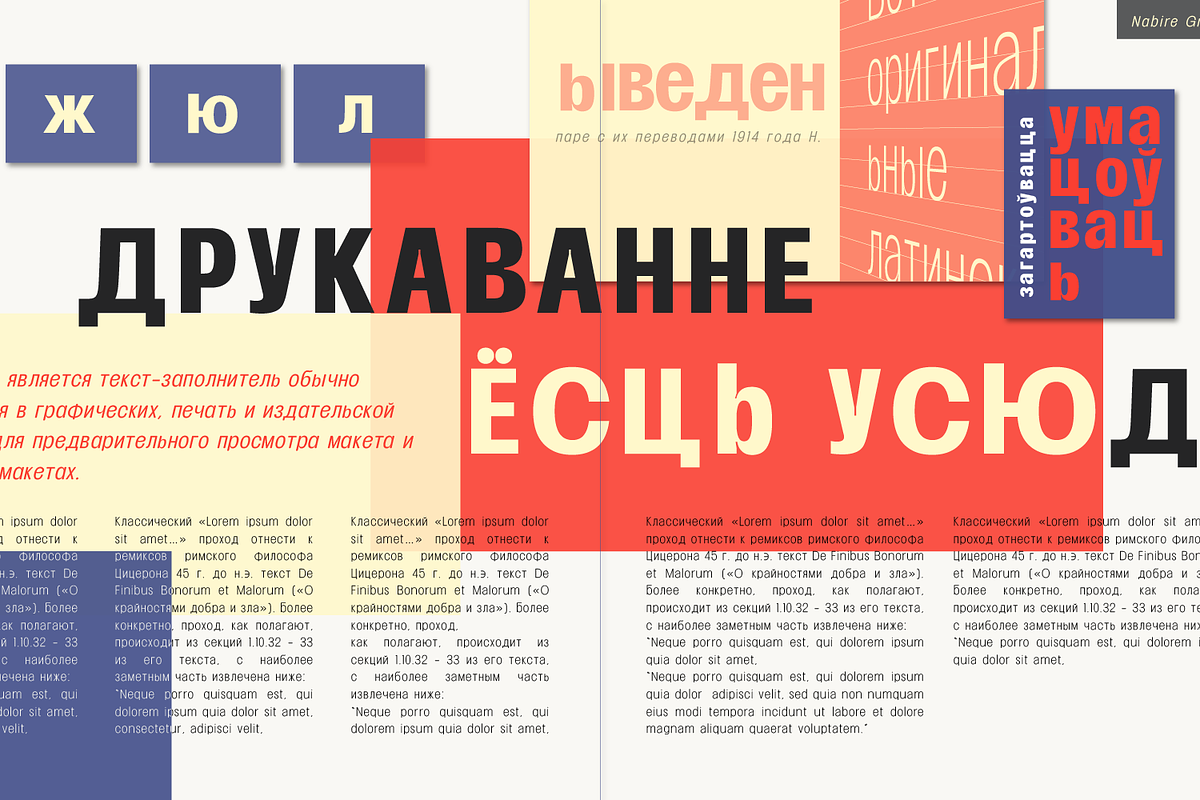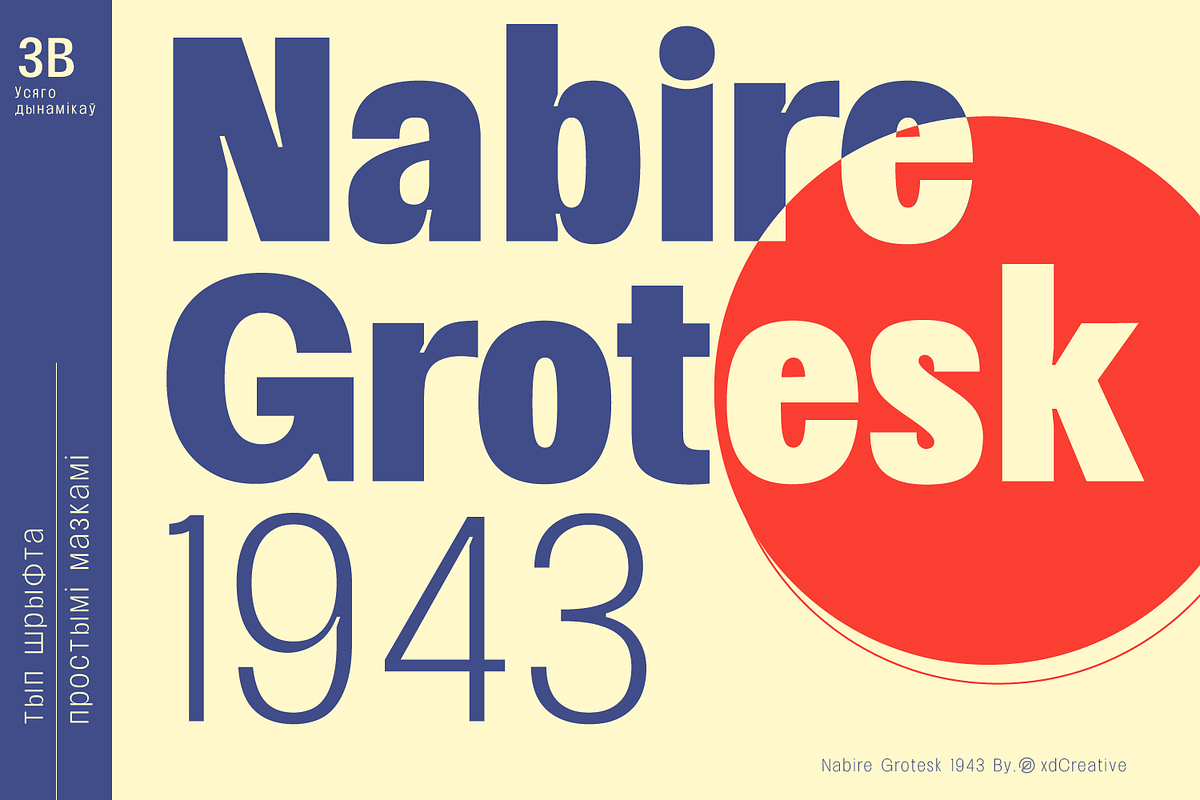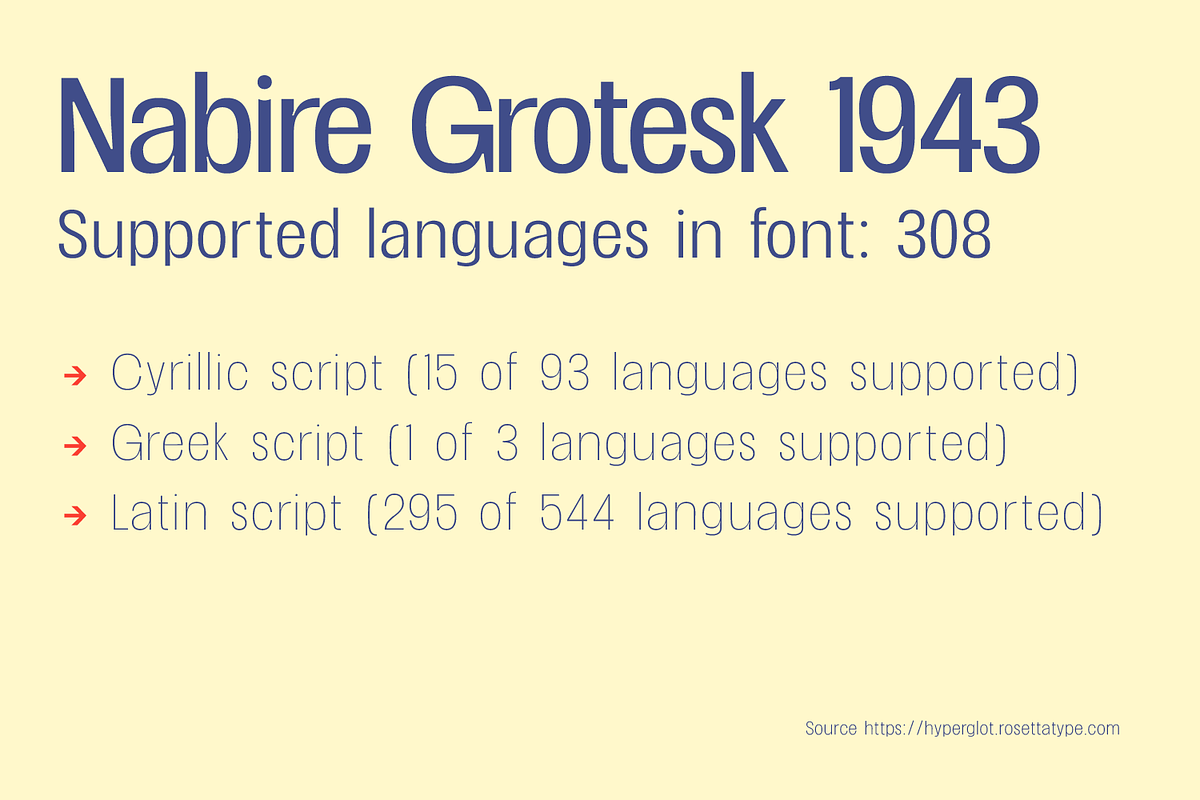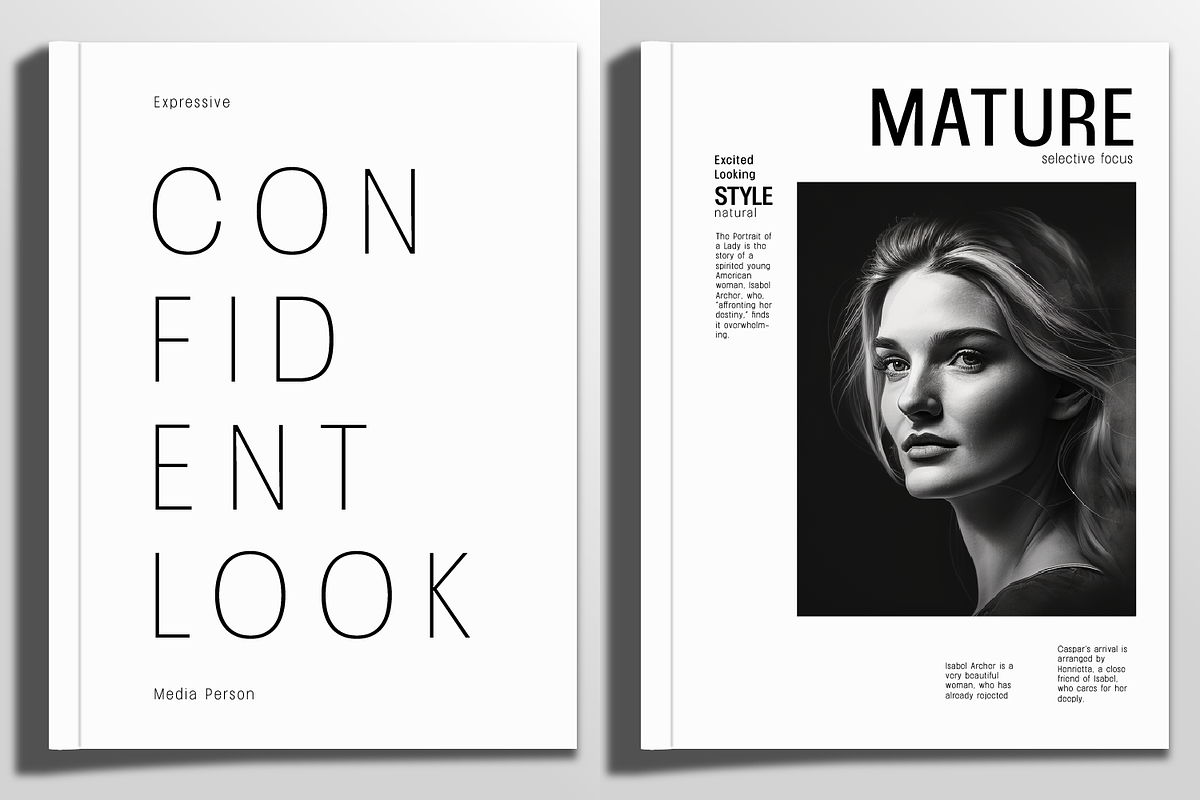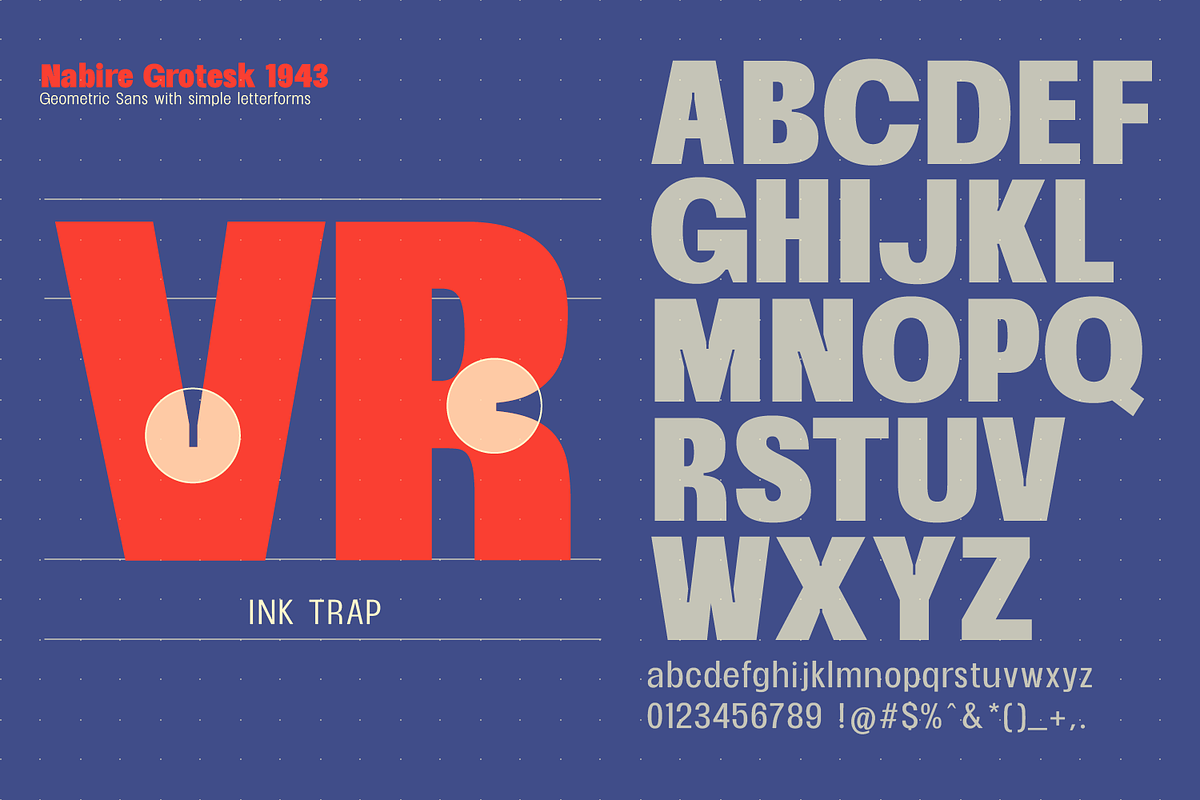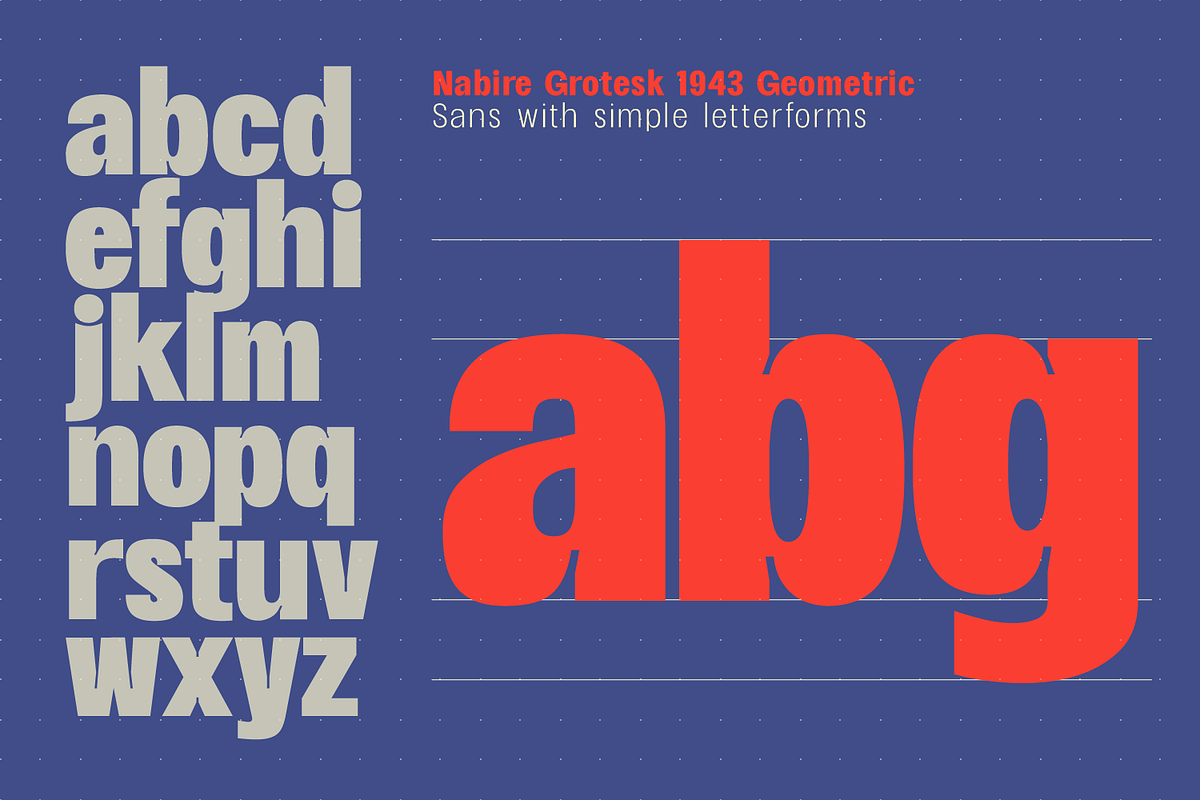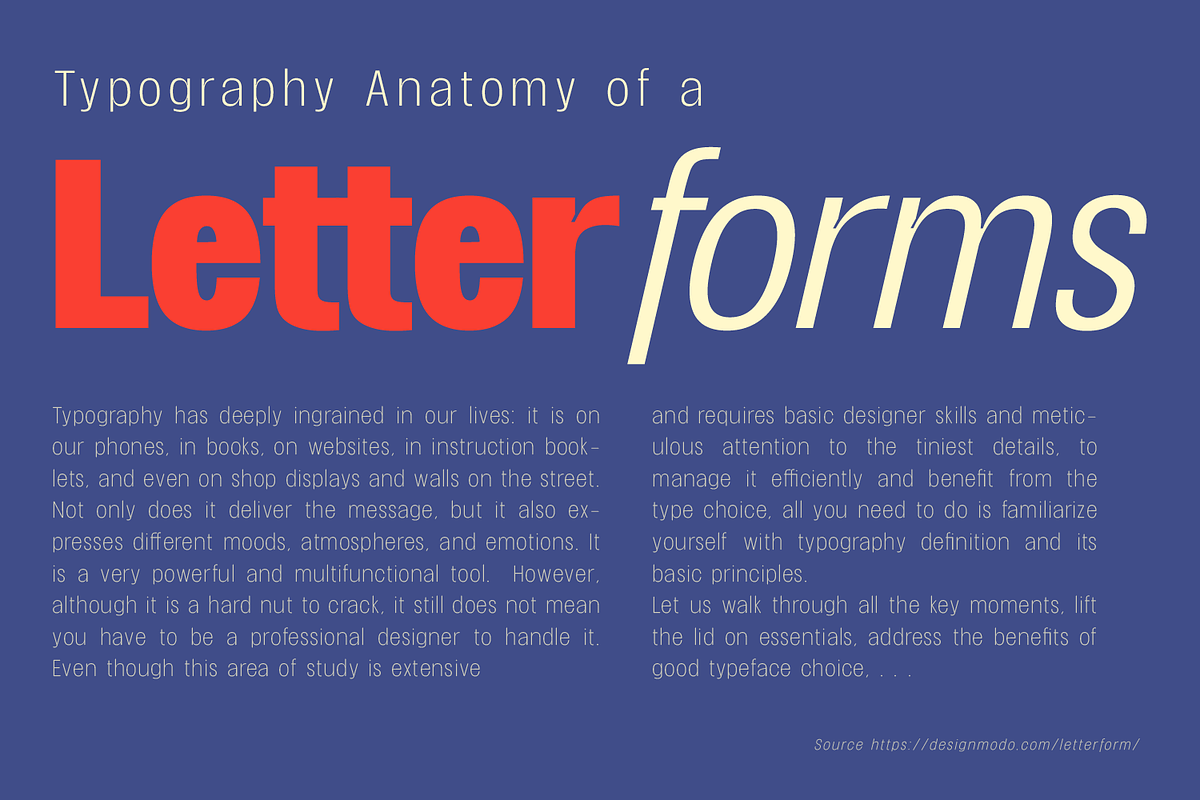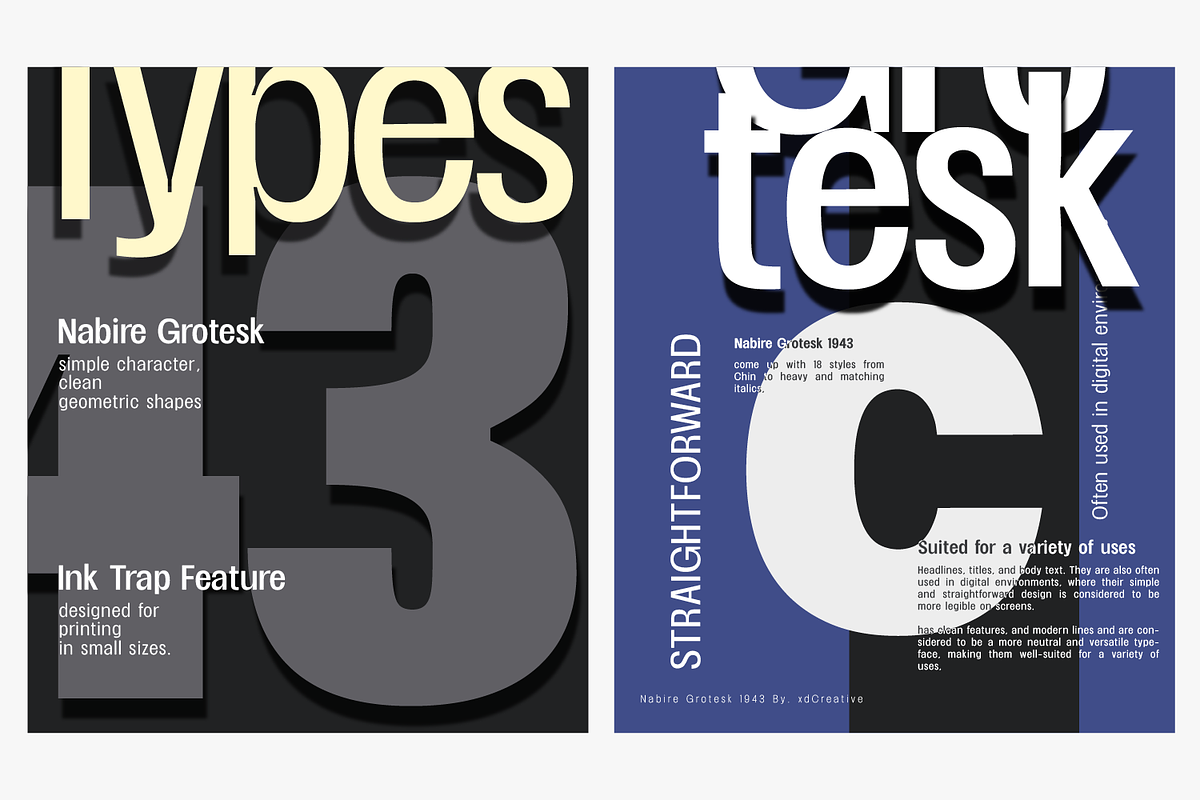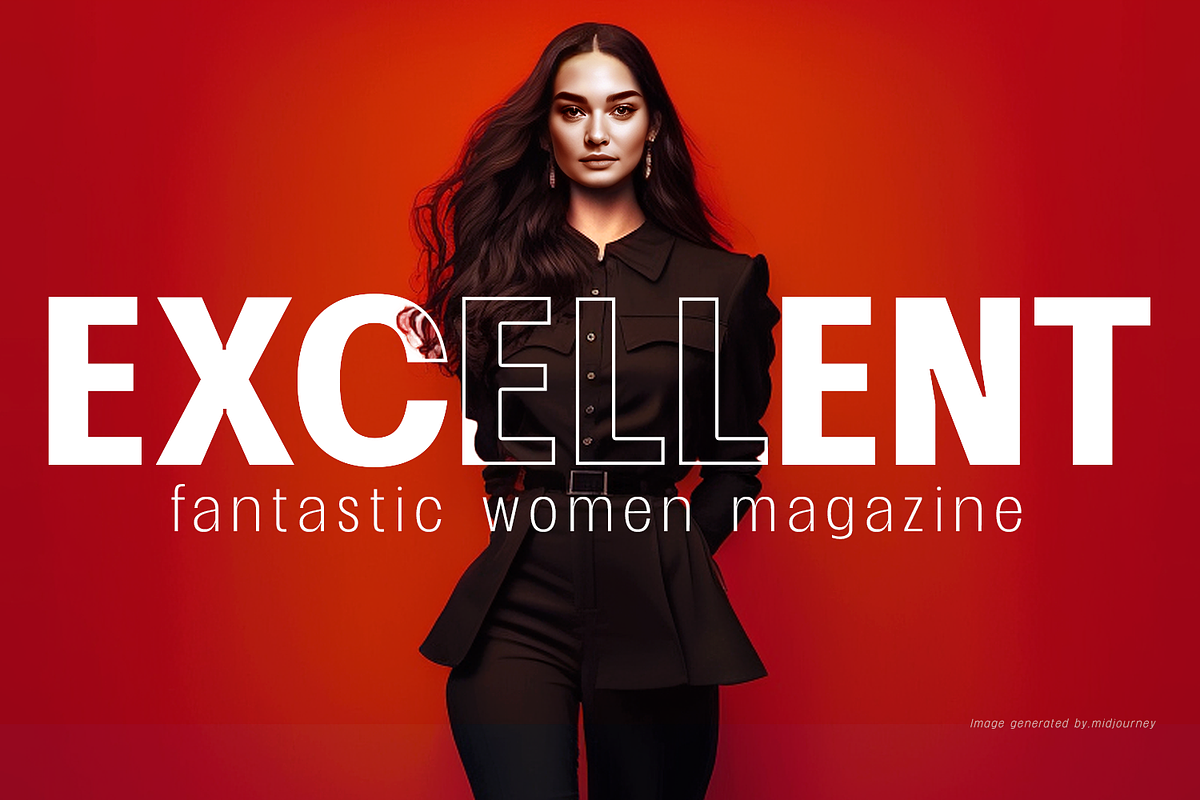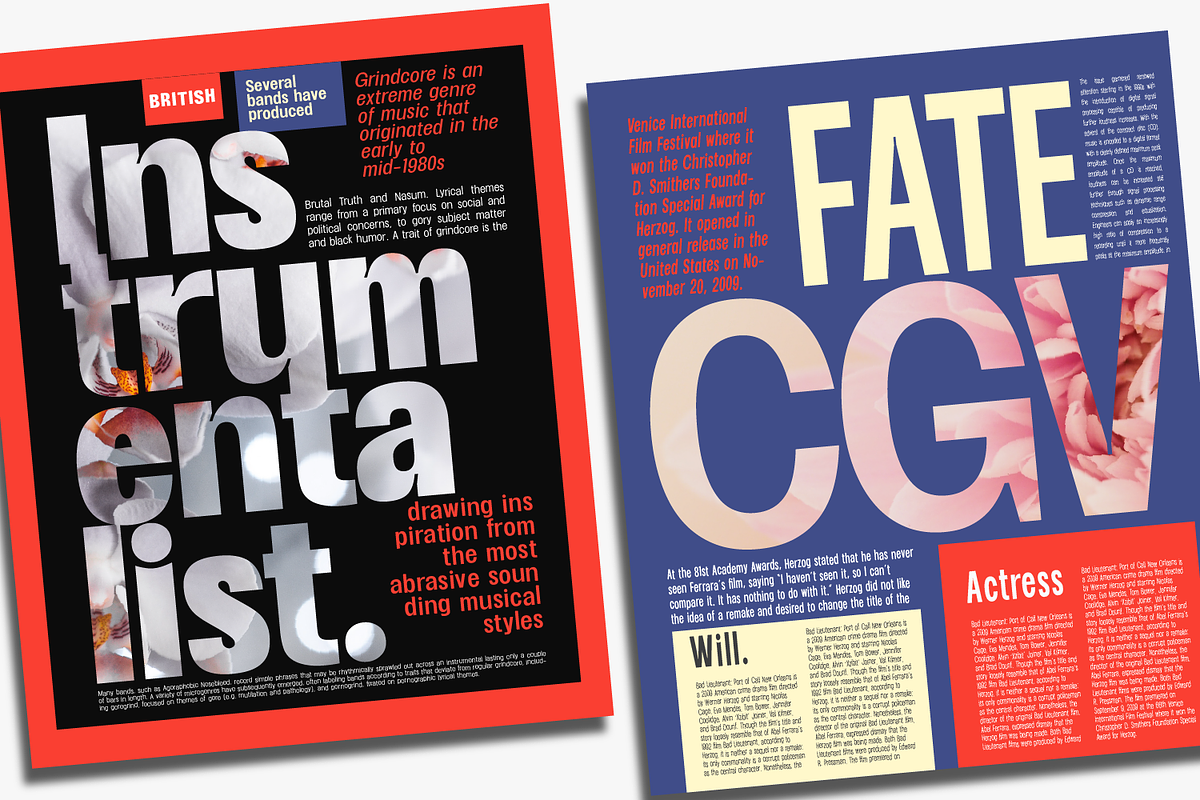
Nabire 1943 Sans Family
Nabire Grotesk 1943
Nabire Grotesk 1943 is a type of sans-serif font that has a simple character and clean geometric shapes, with a lack of ornament.
Nabire Grotesk 1943 has an ink trap feature, which is a feature of certain typefaces designed for printing in small sizes.
Nabire Grotesk 1943 also has clean features, and modern lines and are considered to be a more neutral and versatile typeface, making them well-suited for a variety of uses, such as headlines, titles, and body text. They are also often used in digital environments, where their simple and straightforward design is considered to be more legible on screens.
Nabire Grotesk 1943 come up with 18 styles from thin to heavy and matching italics,
More than 300+ supported languages:
- Cyrillic script (15 of 93 languages supported)
- Greek script (1 of 3 languages supported)
- Latin script (295 of 544 languages supported)